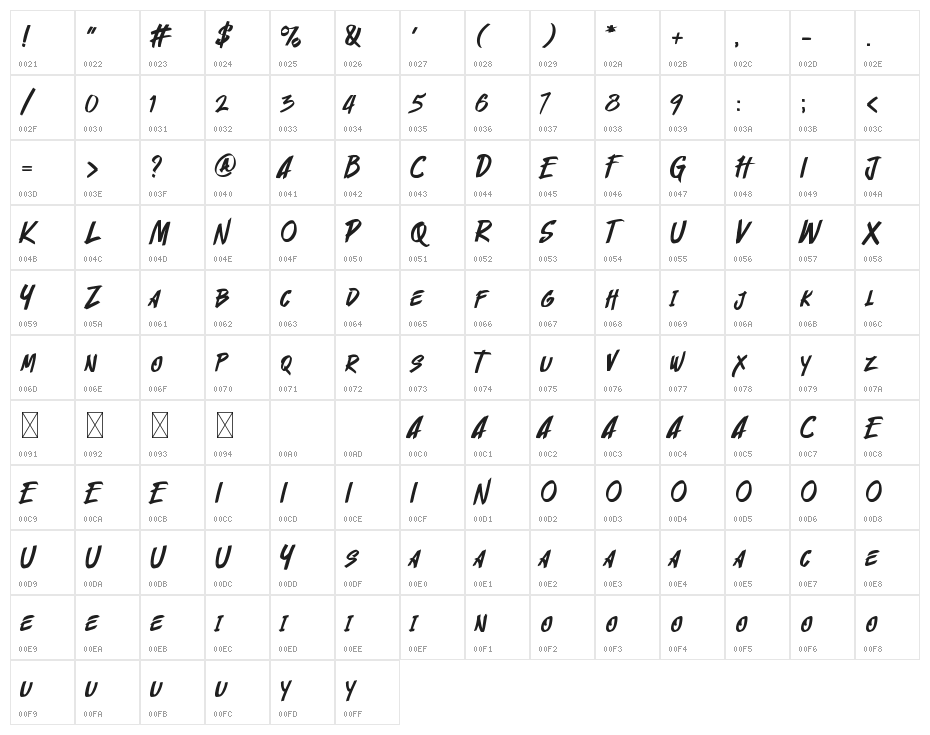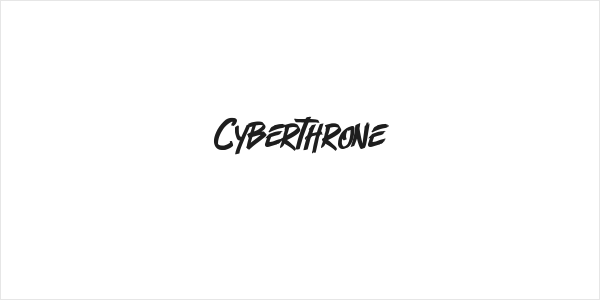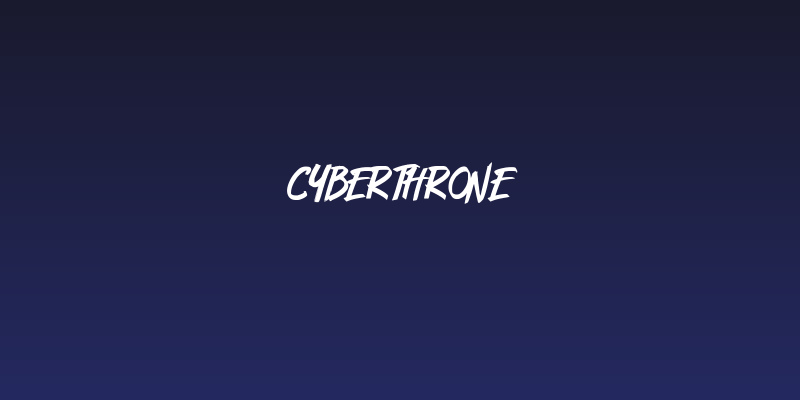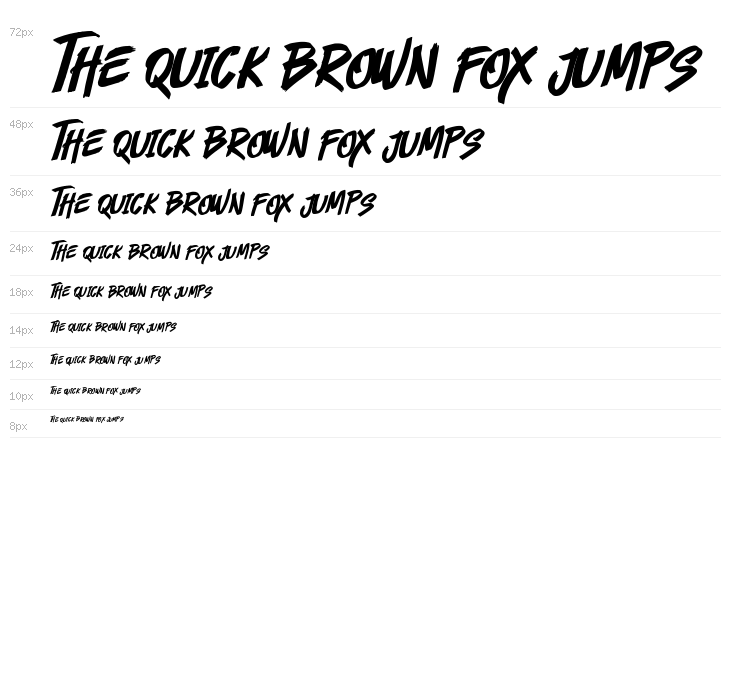
Cyberthrone Font
Cyberthrone Description
This dynamic and bold font features a striking brush script style, characterized by its energetic and fluid strokes. The uppercase and lowercase letters exhibit a sense of movement and flair, with sharp angles and a slightly slanted orientation. The numerals and special characters maintain the same lively aesthetic, ensuring consistency across all glyphs. This font's design is reminiscent of street art and graffiti, making it ideal for projects that require a modern and edgy look. The thick strokes and high contrast between thick and thin lines add to its impactful appearance.
Proposed ProjectsIdeal for branding, posters, album covers, and any project needing a modern, edgy aesthetic.